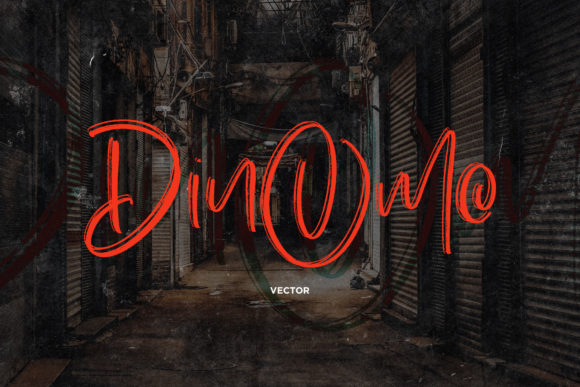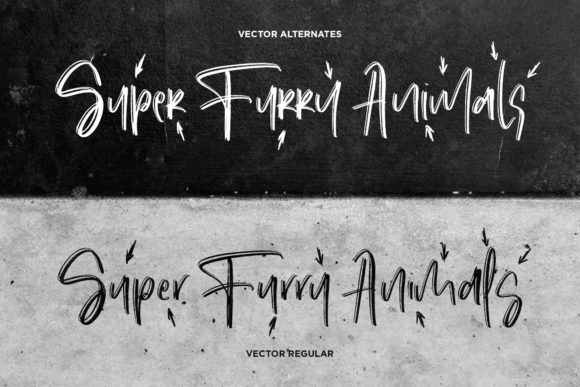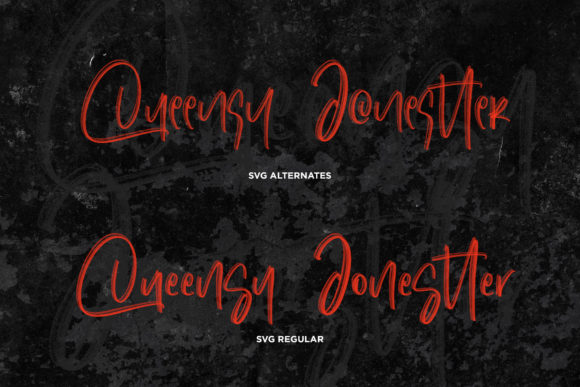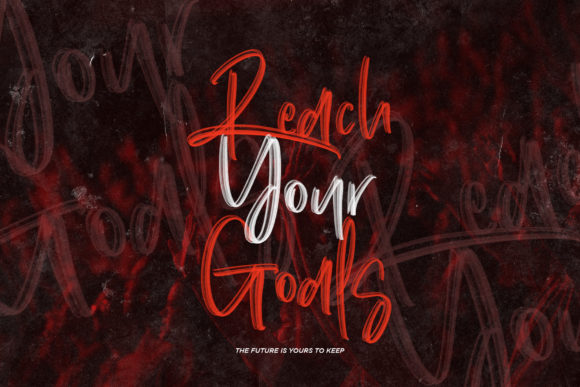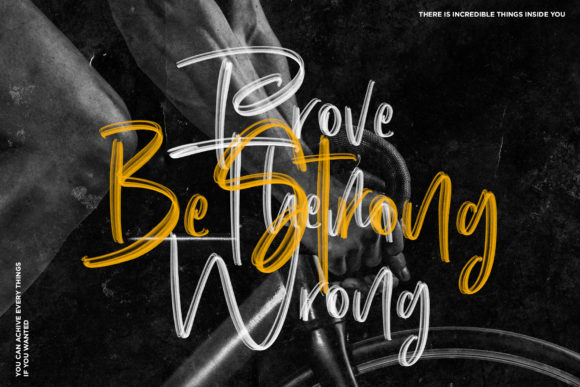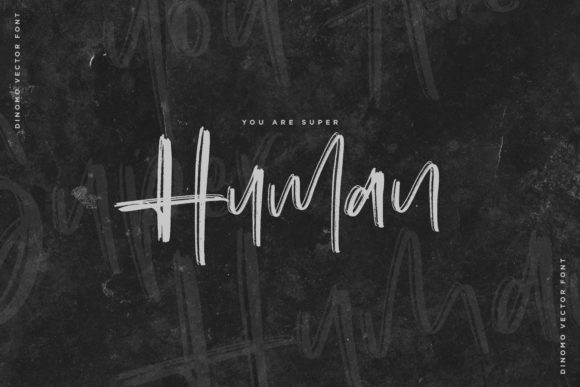
Introduction to Dinomo Font
Have you ever stared at a blank canvas, struggling to bring your creative project to life? You’ve got a vision, but the perfect font to match it seems elusive. That’s where the Dinomo Font comes in – a game-changing design resource that’s about to revolutionize your workflow.
As a designer, you understand the importance of a well-chosen font in elevating your work. The Dinomo Font is a stunning handwritten SVG font with a bold touch, perfect for adding a personal touch to your designs. With its transparent background and high-quality design, it’s a free download that’s sure to become a staple in your toolkit.
Key Features of Dinomo Font
- Unique and creative design suitable for various projects, including logos, branding, and advertising.
- High-quality font with a transparent background, allowing for seamless integration into any design.
- Designed to be versatile and easy to use, making it an ideal choice for both professional and personal creative projects.
- Perfect for designers looking for a distinctive and eye-catching font to elevate their designs and stand out from the crowd.
Honest Review: Dinomo Font
As a designer, I’m always on the lookout for high-quality design resources that can elevate my creative projects. Recently, I stumbled upon the Dinomo Font, and I’m excited to share my honest review.
- The Dinomo Font has a unique and bold design that’s perfect for adding a touch of personality to your designs.
- The transparent background makes it easy to layer the font over images and other design elements.
- The font is highly customizable, allowing you to adjust the size, color, and style to suit your design needs.
- The font may not be suitable for fine typography, as the bold design can be overwhelming.
- The font is limited to a single style, which may not be ideal for designers who need a variety of font options.
Overall, the Dinomo Font is a solid addition to any designer’s toolkit. While it may have some limitations, its unique design and high-quality features make it a great resource for creative projects. Whether you’re a seasoned designer or just starting out, the Dinomo Font is definitely worth checking out.
Tips for Getting the Most Out of the Dinomo Font
Experiment with different font sizes, colors, and combinations to create unique and creative designs. Use the Dinomo Font as a starting point for your design project, and then add your own personal touches to make it truly special.
The Dinomo Font is perfect for a wide range of creative projects, including logos, business cards, brochures, and social media graphics. Its high-quality design and transparent background make it easy to use in a variety of design contexts.
Alternatives to Dinomo Font
The Great Vibes Font is a high-quality, elegant script font perfect for creative projects that require a touch of sophistication. It’s ideal for wedding invitations, logo designs, and other design resources where a refined look is needed. Great Vibes Font offers a transparent background, making it easy to use with any design. Compared to Dinomo Font, Great Vibes Font has a more delicate and intricate design.
The Alex Brush Font is a handwritten font that exudes a sense of elegance and sophistication. It’s perfect for designers looking for a high-quality, free download font that can be used for a variety of creative projects. Alex Brush Font has a transparent background and is ideal for use in logo designs, typography projects, and other design resources where a personal touch is needed. Compared to Dinomo Font, Alex Brush Font has a more flowing and cursive design.